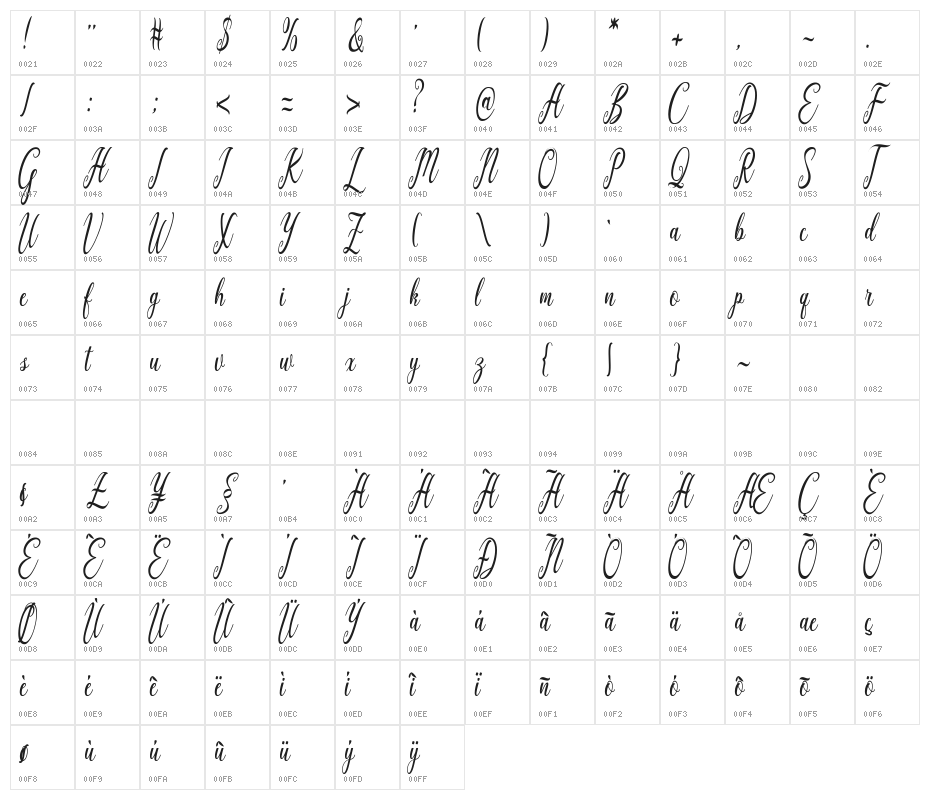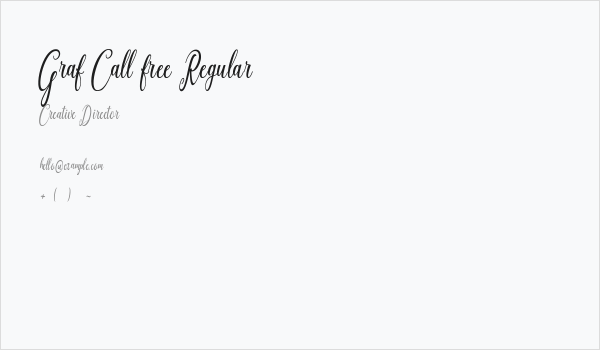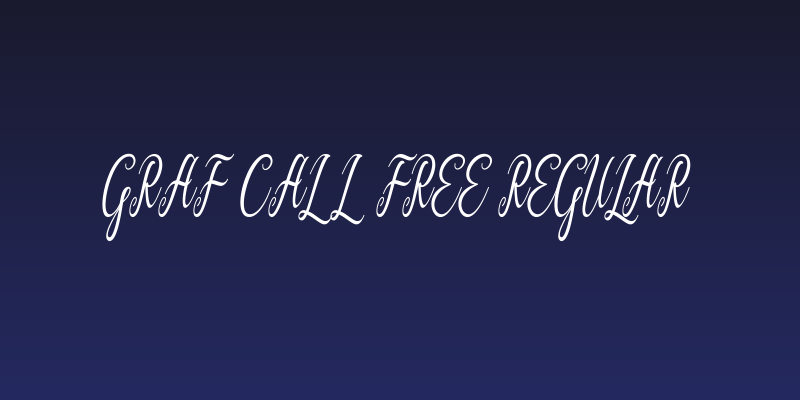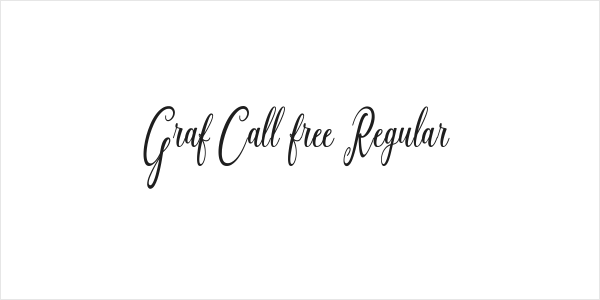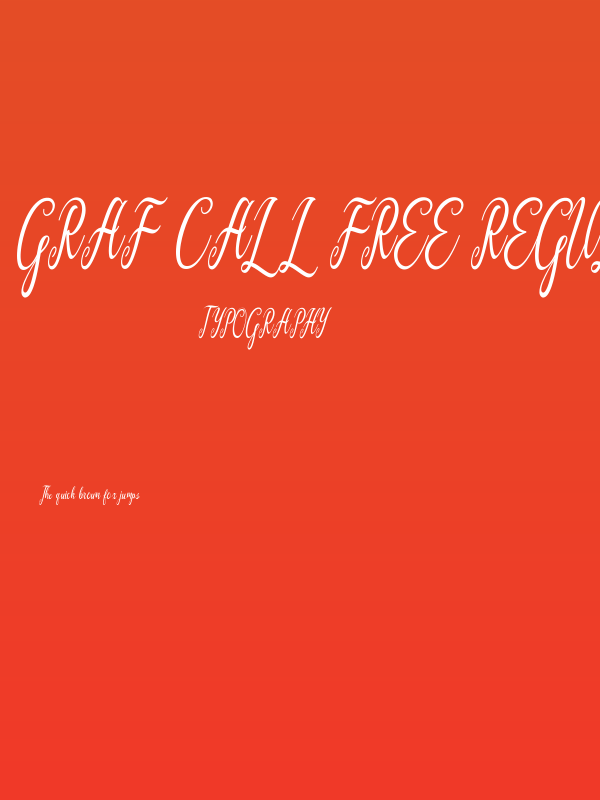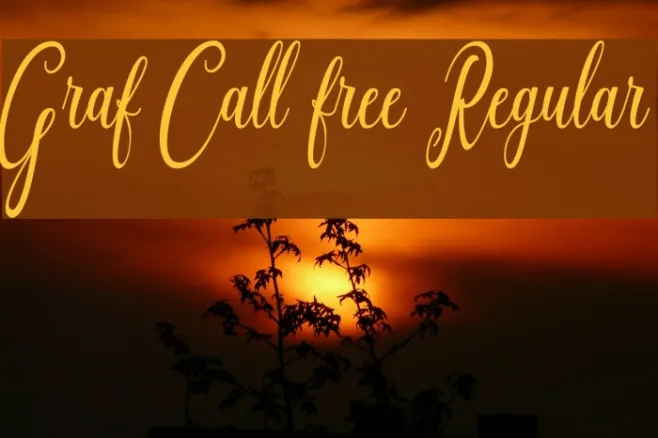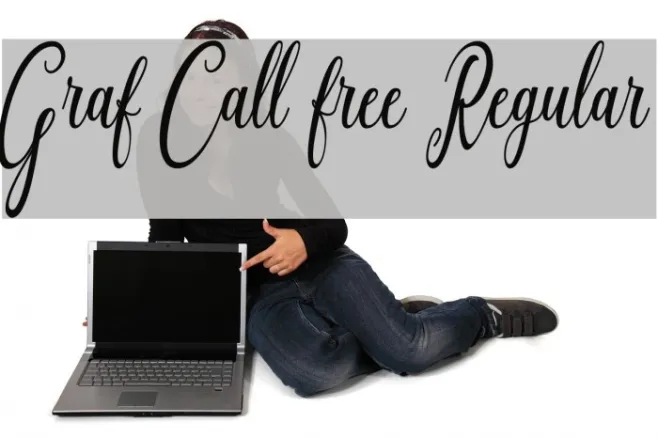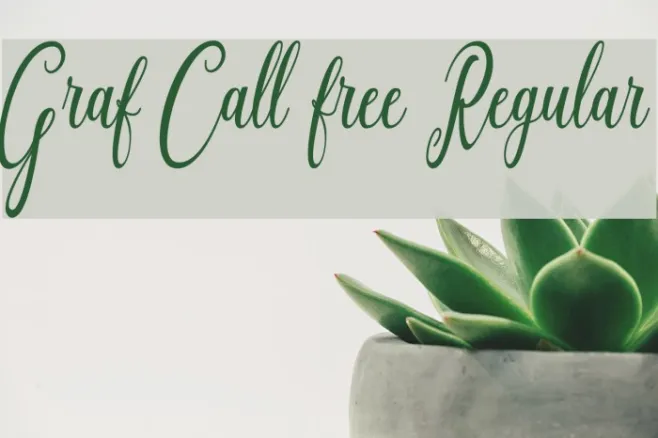
Graf Call free Regular Font
Graf Call free Regular Description
This elegant script font features a flowing, cursive style with intricate loops and swashes, giving it a sophisticated and artistic appearance. The uppercase letters are particularly ornate, with extended flourishes that add a touch of grandeur. The lowercase letters maintain a consistent flow, enhancing readability while still retaining the decorative essence. The numerals and special characters are designed to match the overall aesthetic, ensuring a cohesive look across all text elements. This font is perfect for projects that require a touch of elegance and creativity.
| Proposed Projects | Ideal for wedding invitations, elegant branding, greeting cards, and decorative posters. |